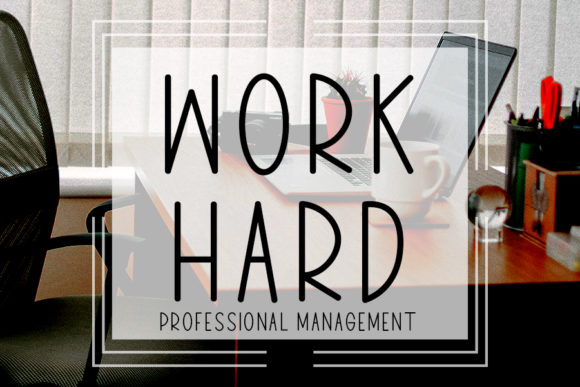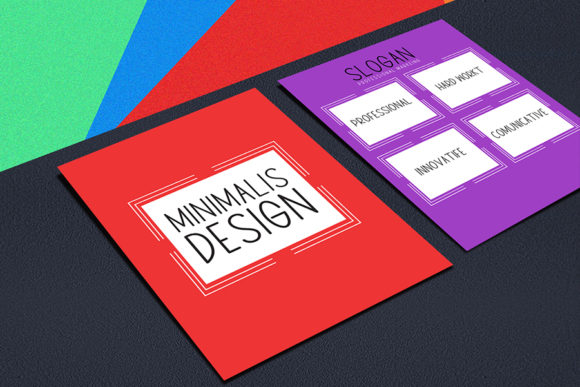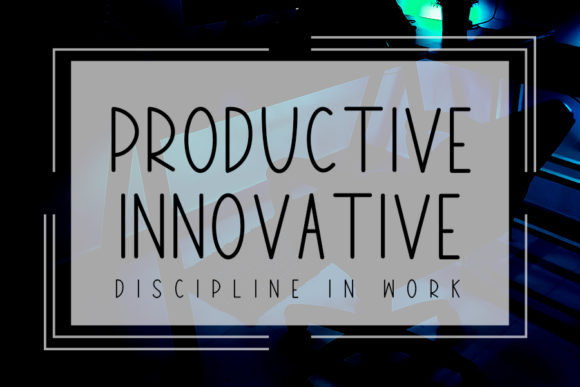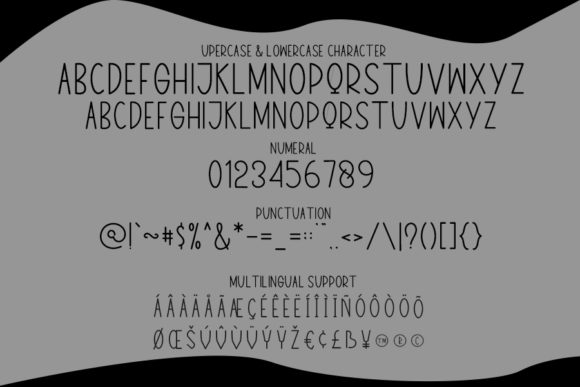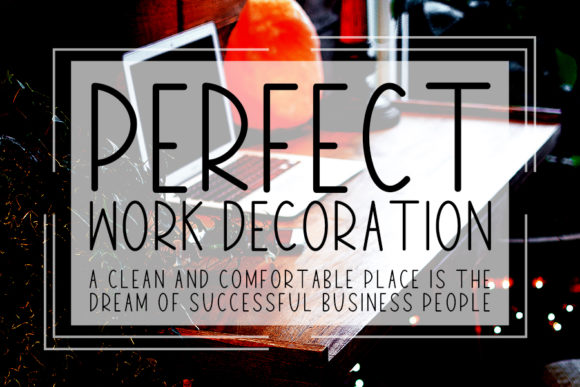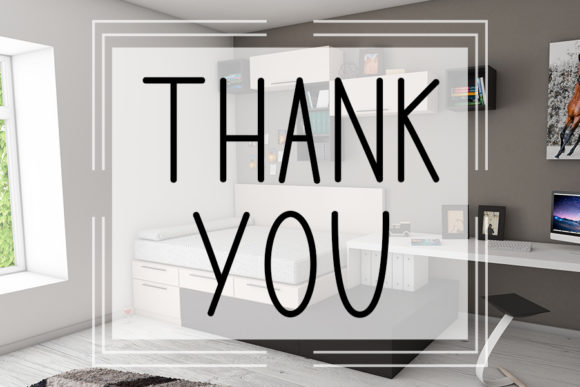
Introduction to Minimalis Home Font
Minimalis Home is a simple and neat sans serif font.
Key Features of Minimalis Home Font
Why Choose Minimalis Home Font?
Minimalis Home Font offers exceptional quality and versatility, making it a valuable addition to your design toolkit. Whether you’re creating for personal projects or commercial use, Minimalis Home Font delivers professional results.